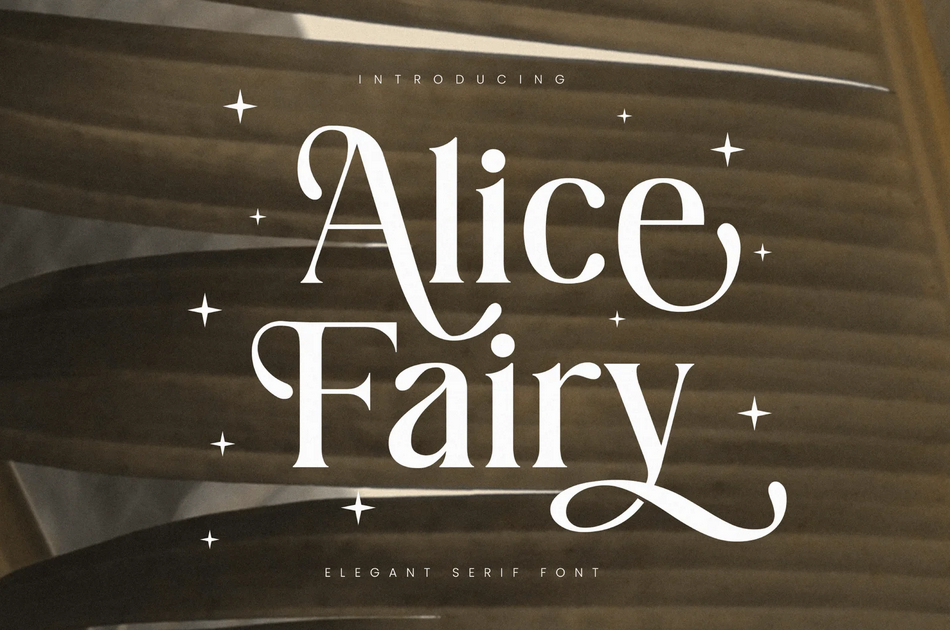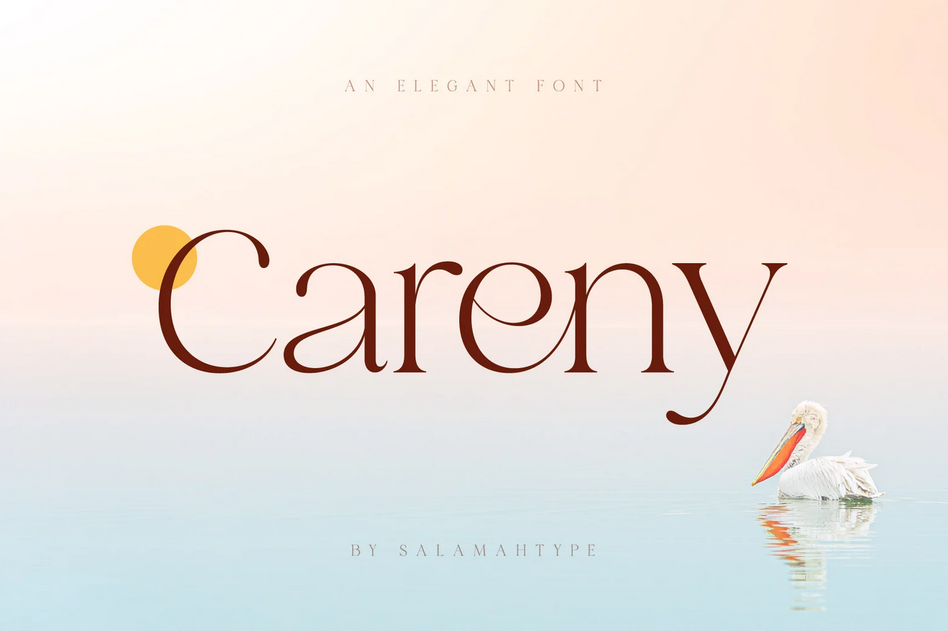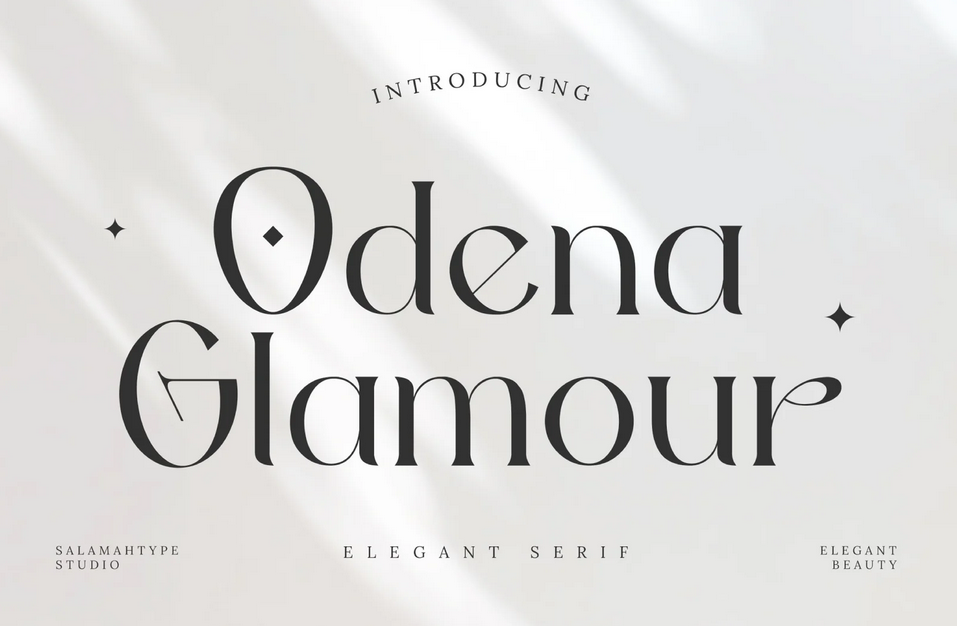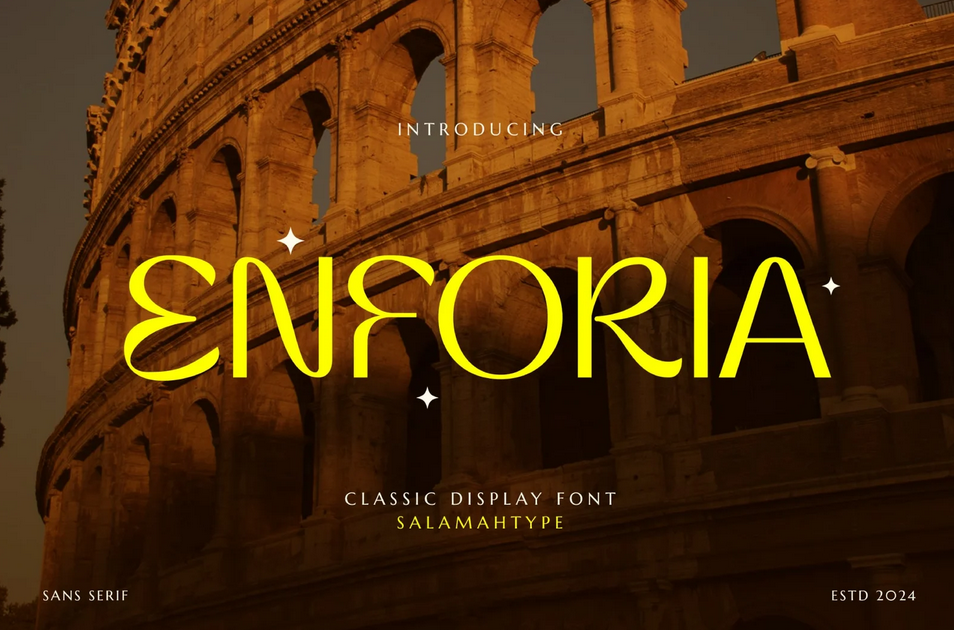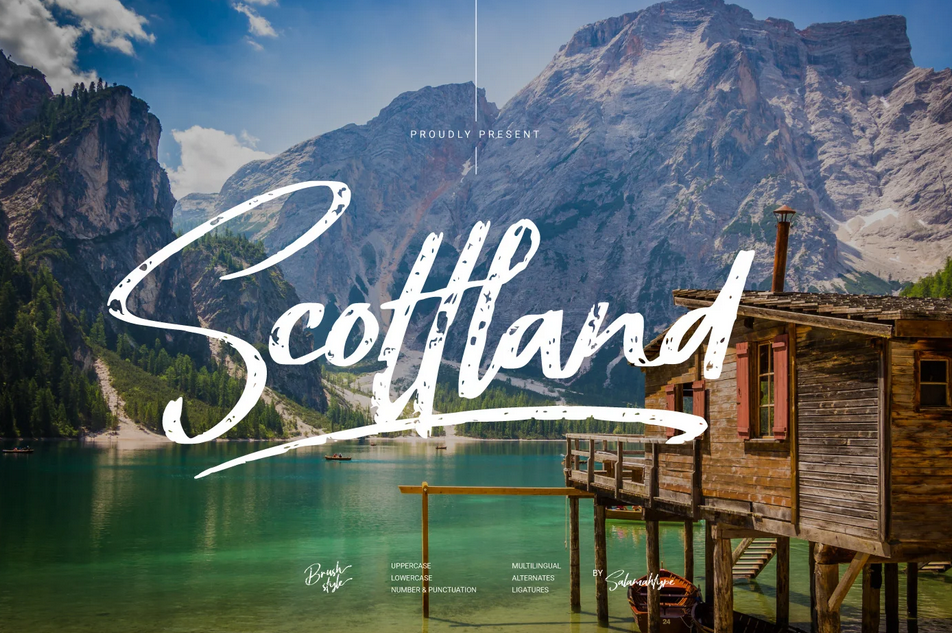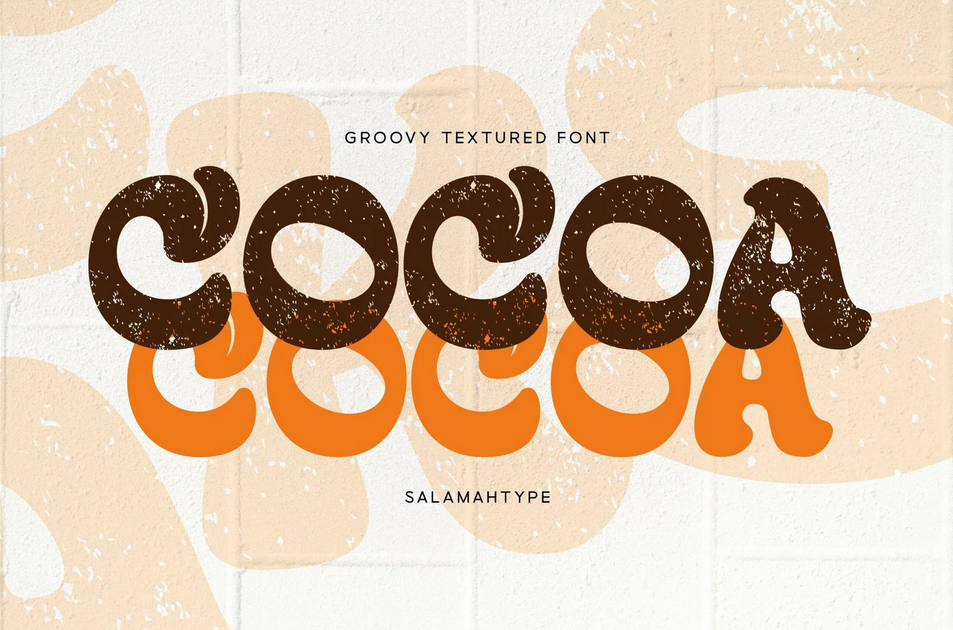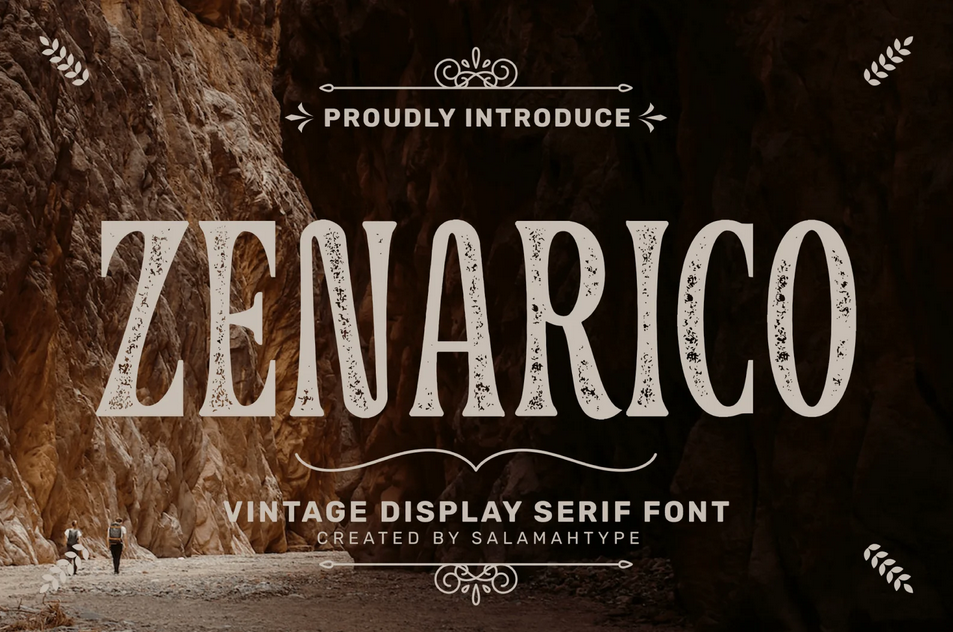
30+ Most Aesthetic Fonts for Stunning Design Projects
Fonts are crucial in visual communication to express emotion perfectly and deliver the message you wish to convey visually. They should be aesthetic but also seamless for the reading experience. Our most aesthetic fonts cater to those requirements and will facilitate you in creating head-turning designs.
30+ Most Aesthetic Fonts to Support Your Designs
What is the most aesthetic font? The answer to the question depends on your goal. But, you can find one or more through our curated selection below.
1. Alice Fairy – Beauty Serif Font
Alice Fairy’s contemporary letterforms and beautiful contrast appear as prestigious as young nobles, with its magical-like swashes like traces of fairies.
2. Nemonty – Minimalist Font
Nenonty’s balanced shapes and thin structure exude the beauty of simplicity. It has an option of curvy letterforms, too.
3. Cocoa – Groovy Font
Cocoa’s textured letterform emphasizes the aesthetic point of the font. Its groovy strokes and slanted axis on the letter ‘o’ also add to its playfulness.
4. Sunday Vacay – Groovy Font
Sunday Vacay’s dramatic groovy letterforms and summerish strokes are as lively as a holiday at the weekend.
5. Clasima – Elegant Font
Clasima has a tease of cursive strokes on the bowls and double-story ‘g’. It is also one of the most aesthetic fonts that has petal-like ligatures.
6. Mayoze
Mayoze adopts a slanted axis on the letter ‘o’. The font also adopts the serif-style letterform but with more noticeable serifs.
7. Zenarico Vintage Serif
With a straight baseline of uppercases, Zenarico has traces of a unique texture on its stylish stroke.
8. Budaya Classic Culture Font
Budaya’s medium-weight and traditional-vibed serifs exude the strong authenticity of a cultural lifestyle. Use the font for your tourism magazines, billboards, and even film projects
9. Major Birch – Vintage Logo Font
Major Birch presents contemporary connecting strokes and swashes in its vintage-style letterform.
10. Careny – Modern Elegant Serif
Careny has an aesthetic dynamic between its thin and thick strokes. The font also portrays a good depiction of the pelican’s beak on its bowls and tails.
11. Odena Glamour
Odena Glamour is an elegant serif-style letterform that includes enchanting alternates, like a slanted axis of ‘e’ and the decorative horizontal element of ‘g’.
12. Imagine Serif
Imagine is a vintage-style font that offers a textured letterform. It also provides four styles of texture, like the rough and the stamp versions.
13. GRANCE – Elegant Serif
Grance’s delicate thin and thick strokes represent elegance, whilst the gorgeous ligatures show the glamour of the font.
14. Aloevera
Aloevera showcases the aloe-vera-leave-like letter shapes but with rounded ones at the end of the strokes and swashes.
15. Kimburgery Free Font
Kimburgery is one of the most aesthetic fonts with serif-style letter shapes. It has great legibility and seems versatile with its minimalist strokes.
16. Evafiya Elegant Serif Font
Evafiya’s medium weight contributes wonderfully to the font’s elegance. In addition to that, the ligatures are aesthetically drawn without exaggeration.
17. Meriyan Stylish Serif
Meriyan has eye-catching swashes that depict classic aesthetics while the visible stroke contrast contributes to readability. Use this aesthetic for stunning product designs or packaging.
18. Enforia – Classic Display Font
Enforia adopts the classic appearance of the display font. The distinctive curves impact headlines in your designs.
19. Scottland Brush
Scotland has a spontaneous style in the uppercase and a handwritten one in the lowercase. Its loose and textured strokes enliven the aesthetic and free-spirited vibe of any project design, like product packaging and social media posts.
20. Small Memory Handwritten